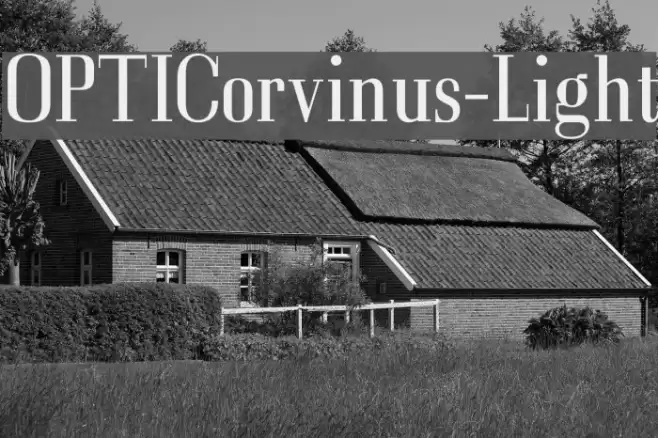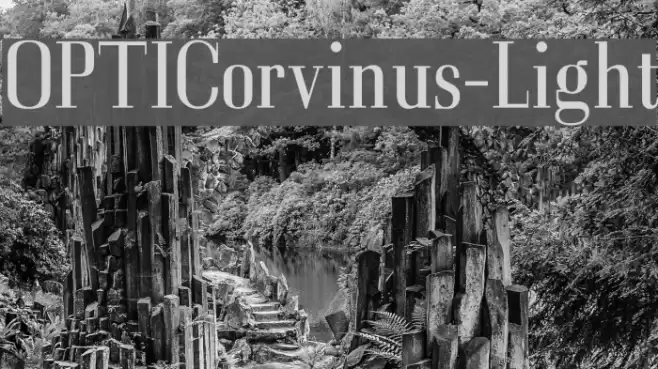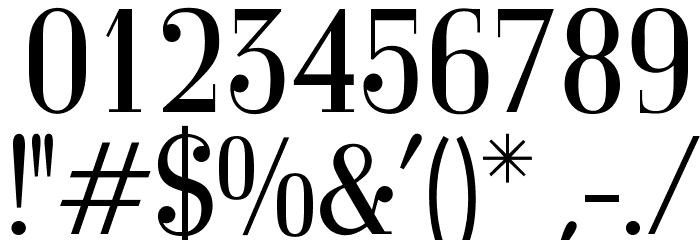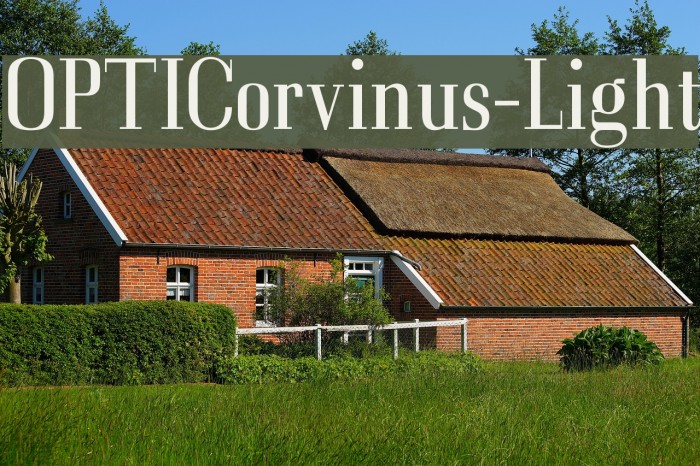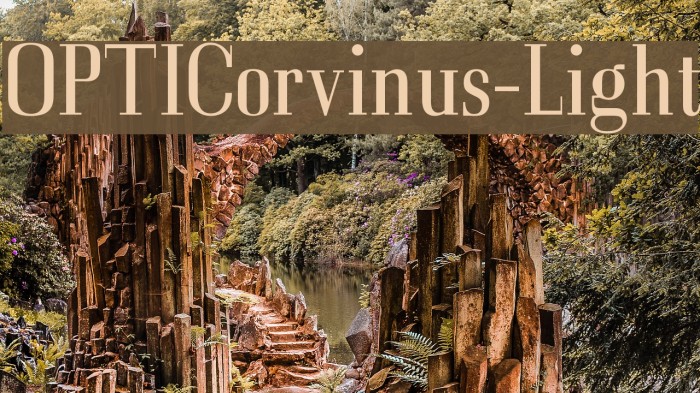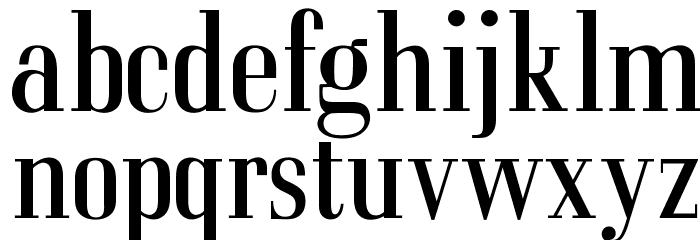
OPTICorvinus-Light Font
OPTICorvinus-Light Description
This font features a refined and elegant serif style, characterized by its thin, elongated strokes and high contrast between thick and thin lines. The uppercase letters exhibit a classic and sophisticated appearance, with sharp serifs and a vertical emphasis. The lowercase letters maintain a consistent style, offering a harmonious blend of traditional and modern elements. The numerals are clear and distinct, ensuring readability. Special characters are well-integrated, maintaining the overall aesthetic of the font. This typeface exudes a sense of timeless elegance, making it suitable for a variety of formal and professional applications.
A refined serif font with high contrast and elegant, elongated strokes from Uncategorized fonts.
- Proposed Projects: Ideal for editorial design, book covers, formal invitations, and branding projects that require a touch of sophistication.
- Weight: Light
- Overall Style: Classic